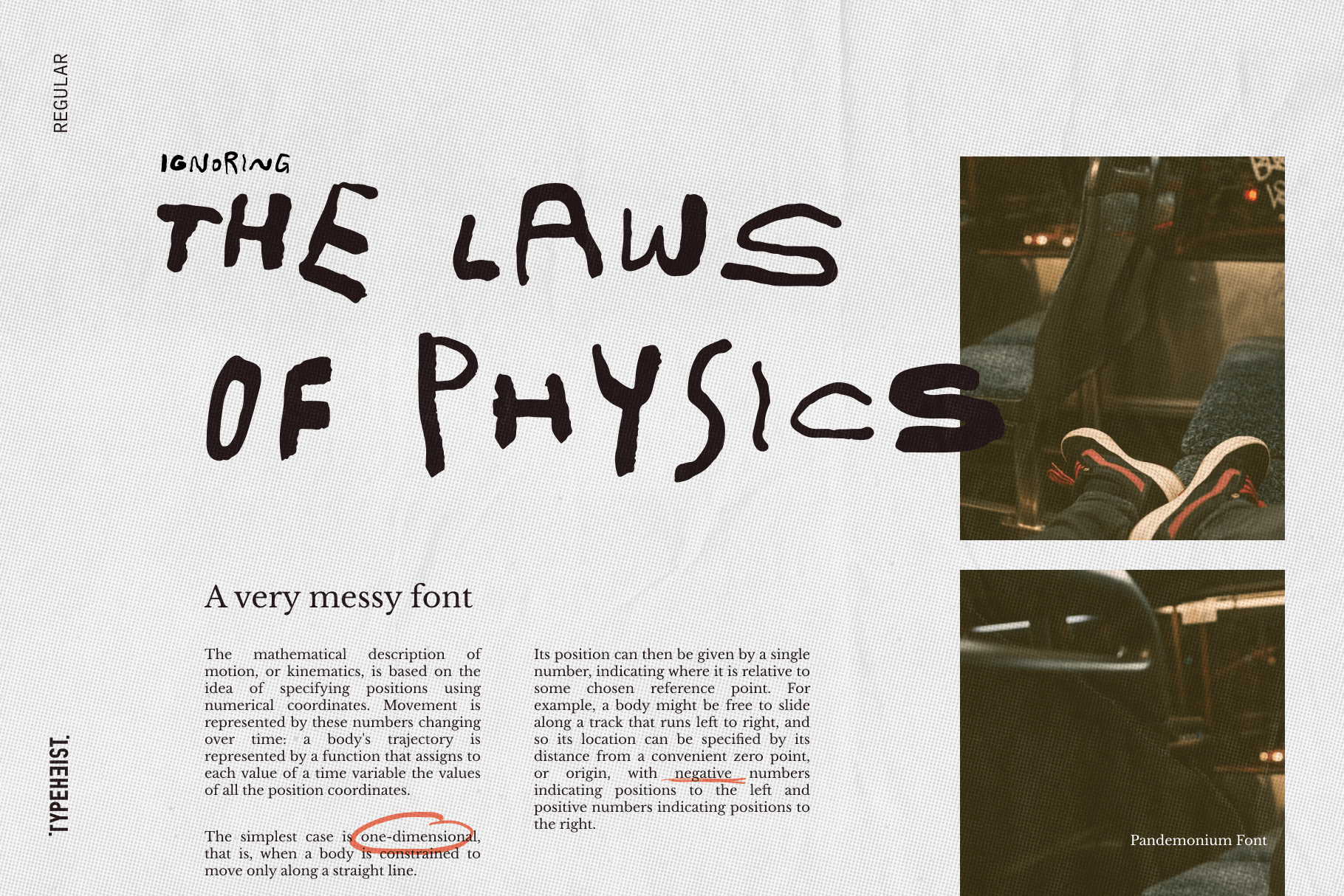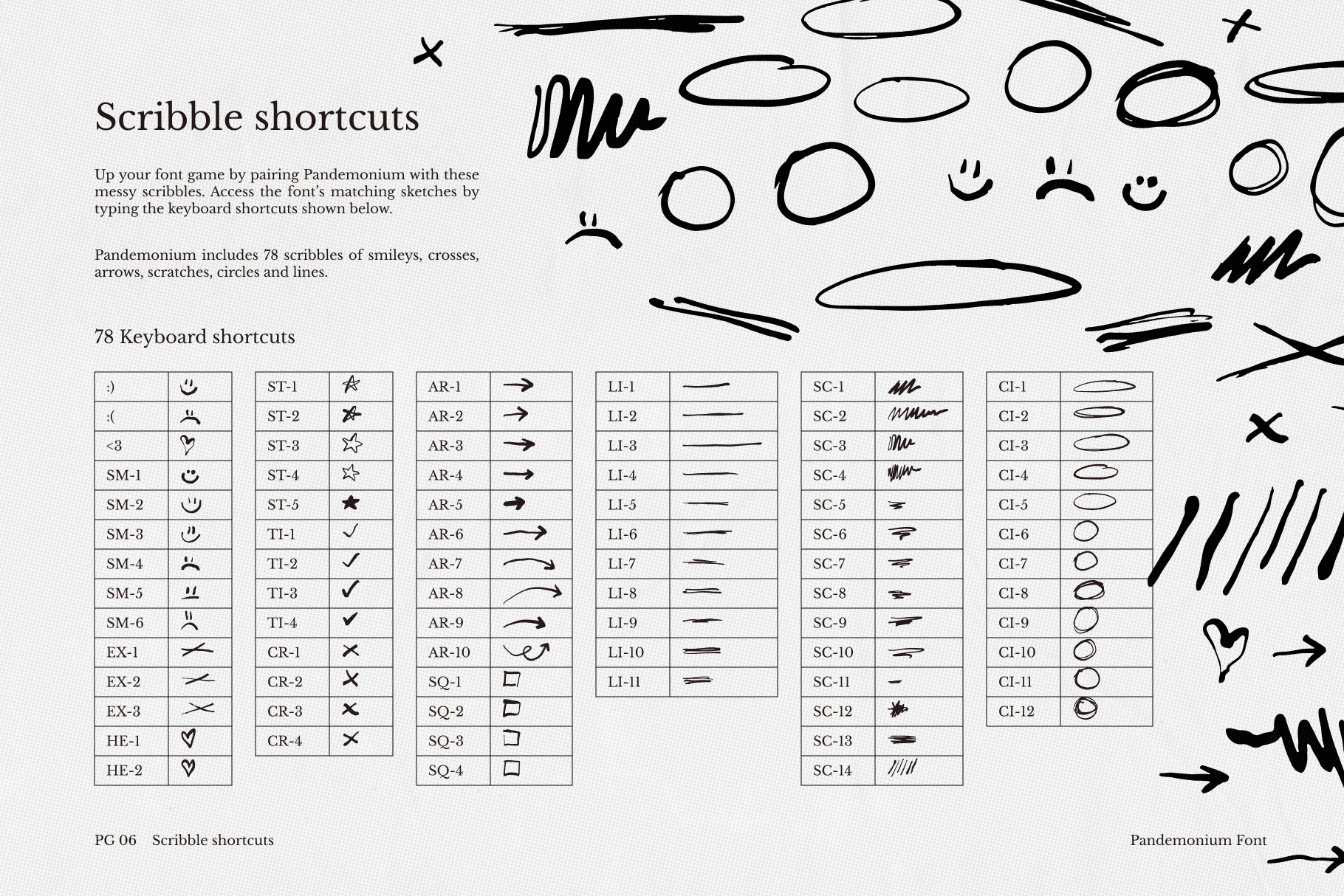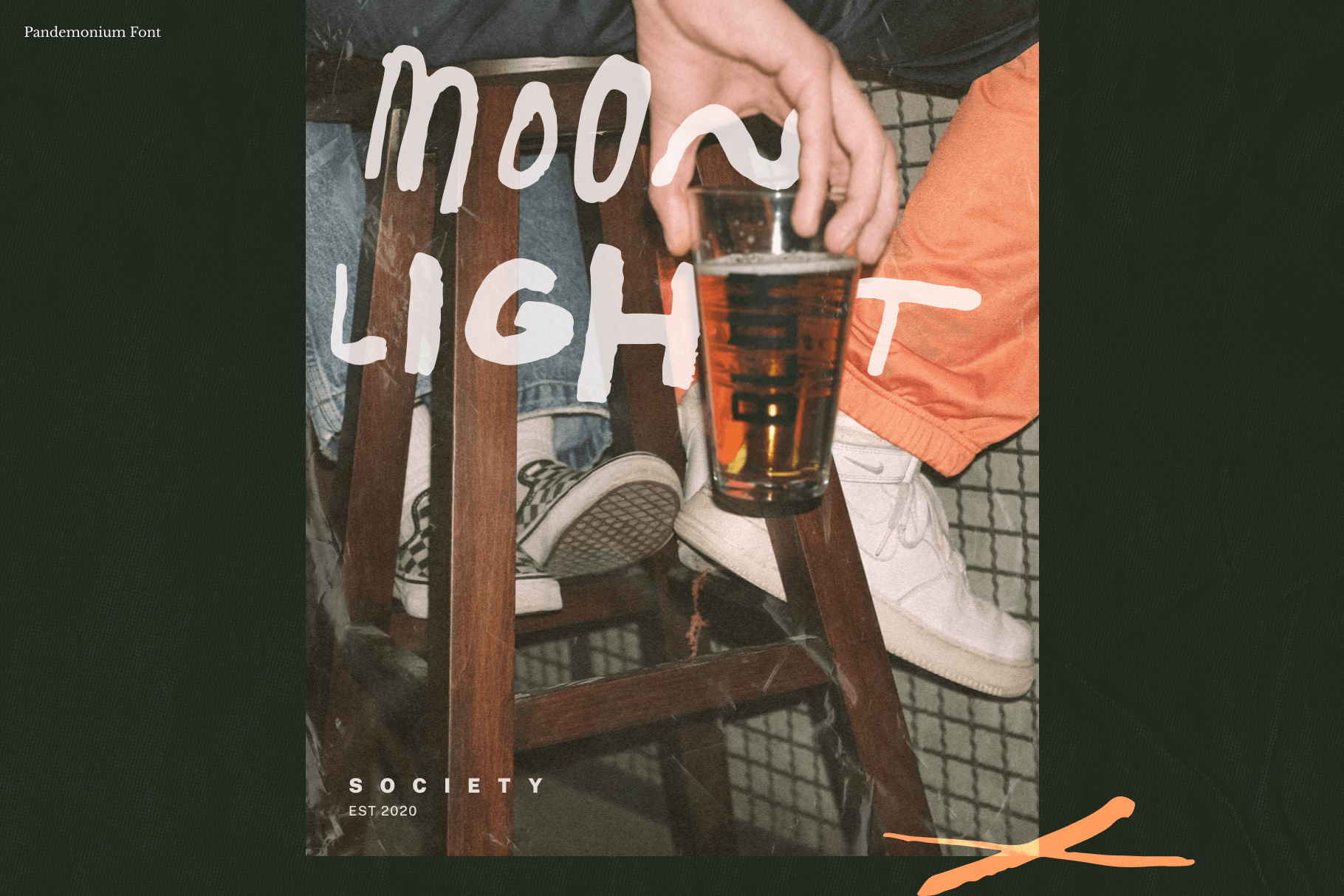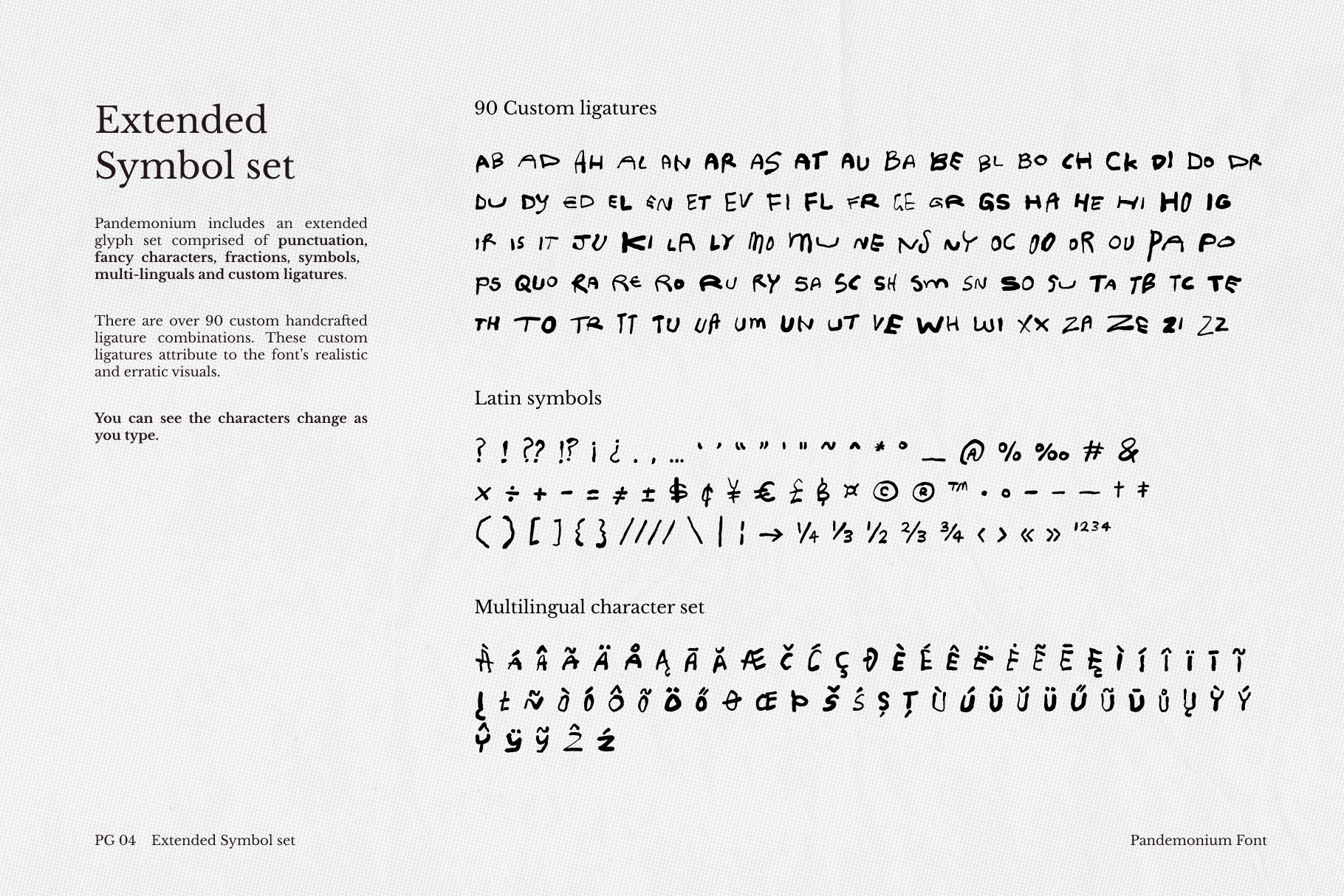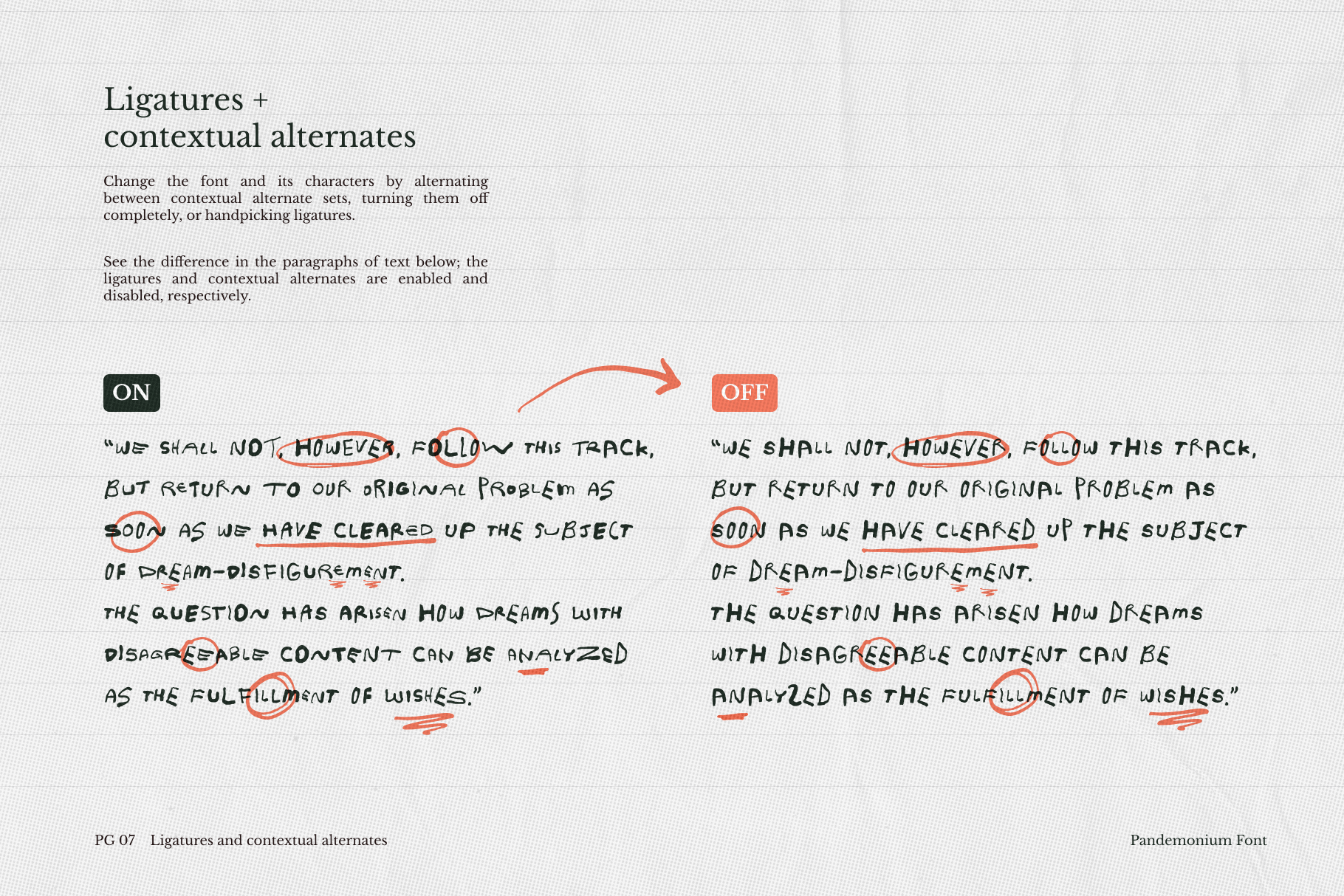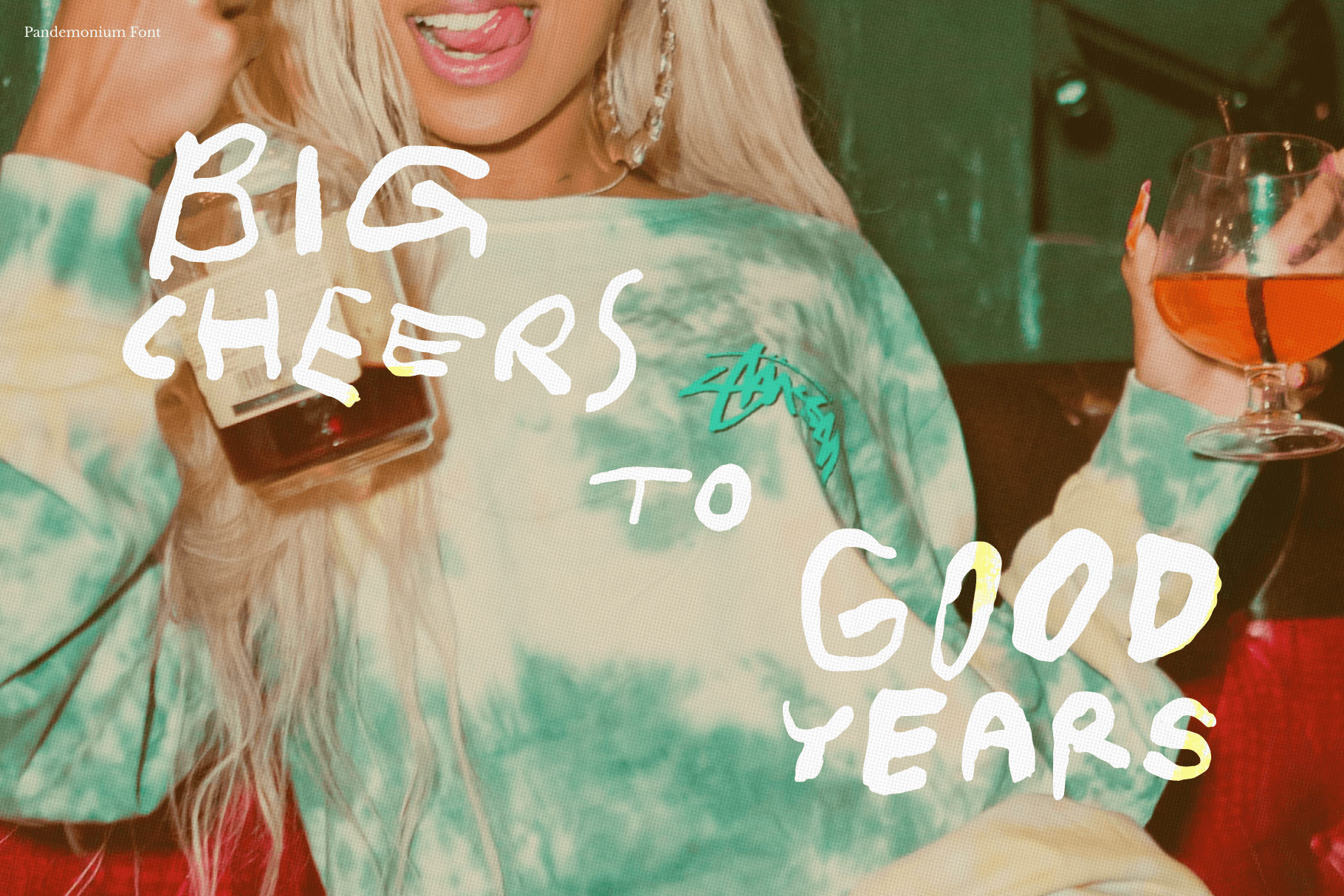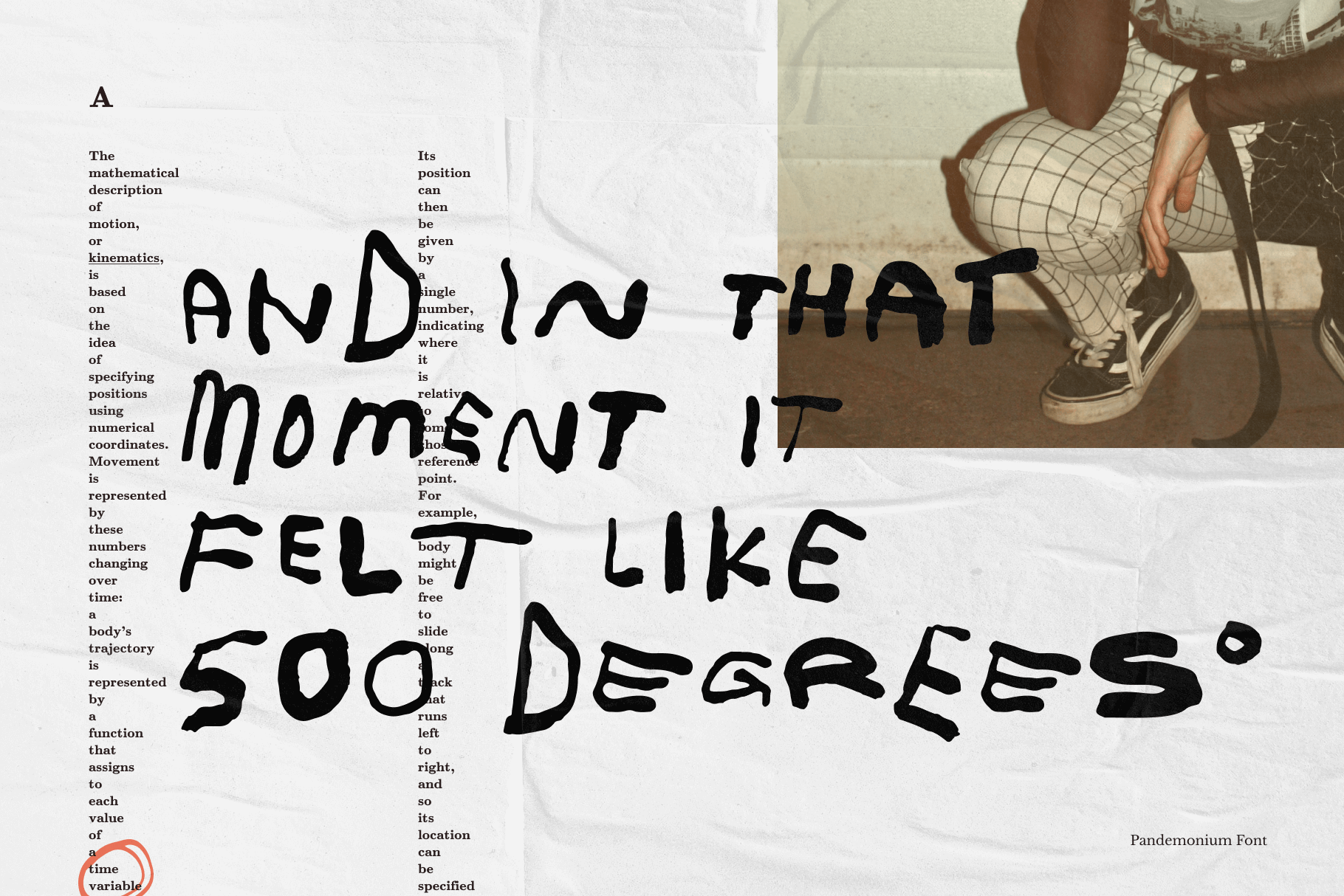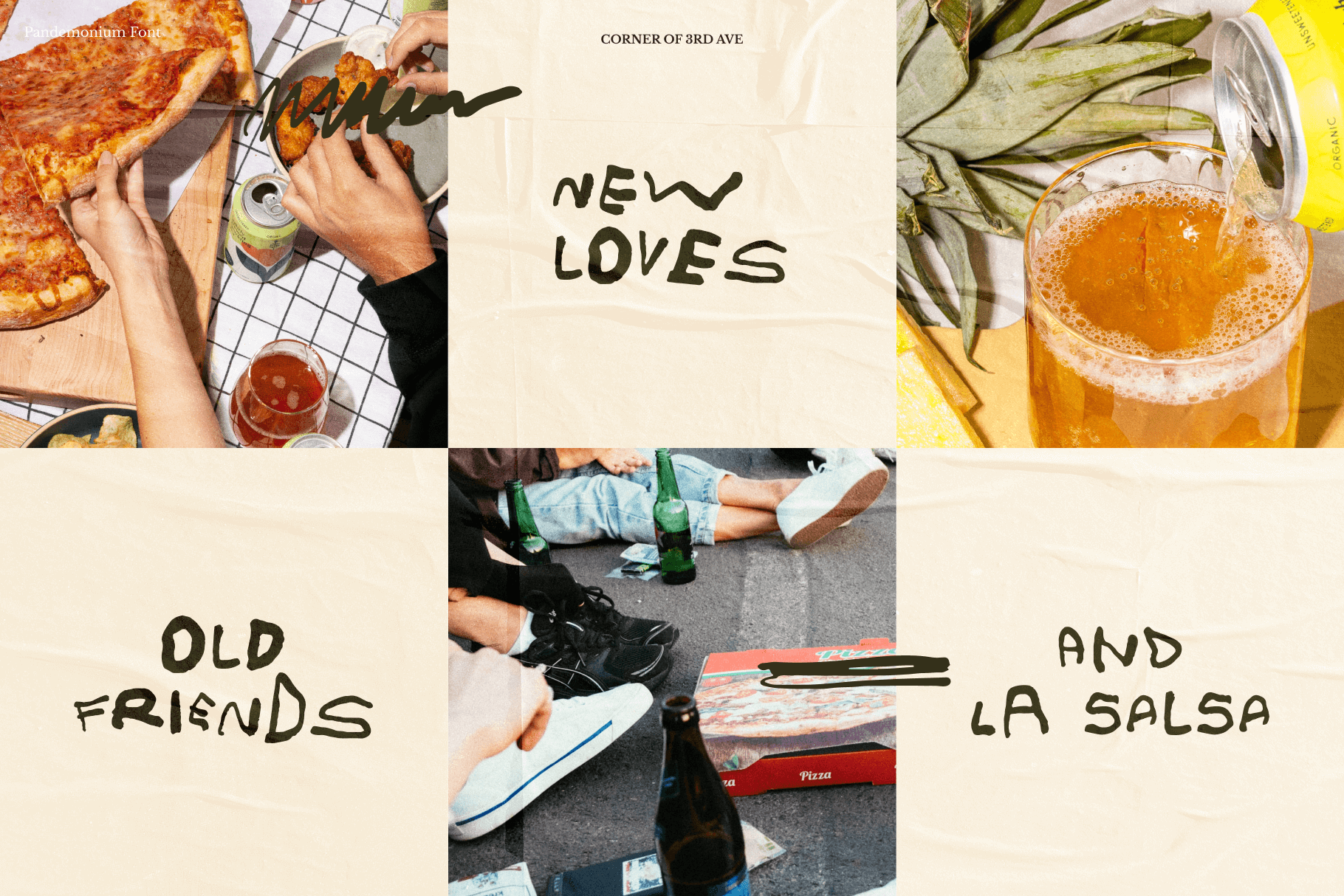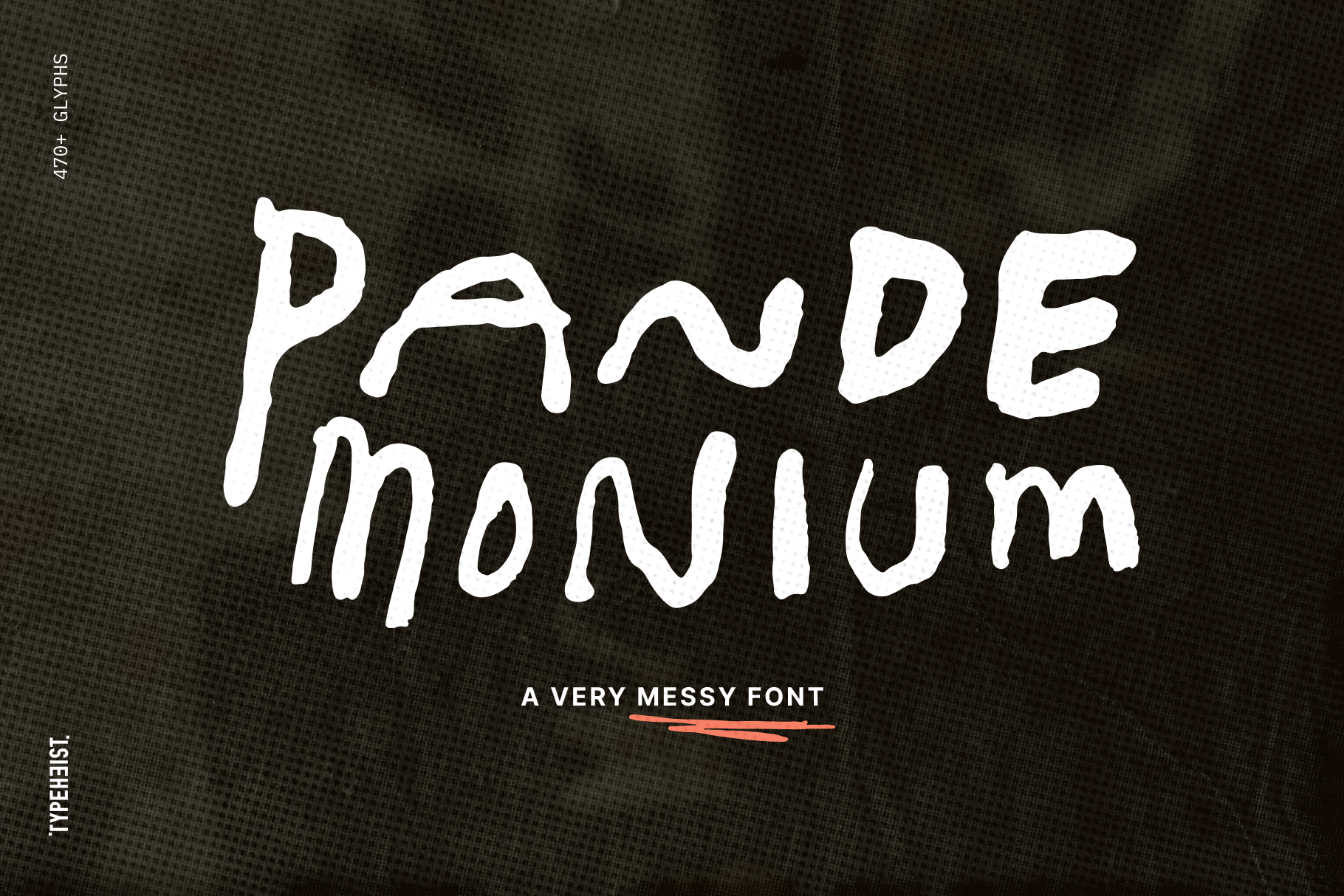
“Wild uproar, unrestrained disorder; tumult or chaos”. True to its name, Pandemonium font is exactly that: wild, chaotic and super erratic.
This messy handwriting font doesn’t follow any rules. It’s skinny, it’s wide, it’s bold, it’s scratchy, it’s jagged and unpredictable. And yet somehow, amongst it’s disorder, each letter harmonises with the next one.
Pandemonium has multilingual characters, four equally wild sets of A-Z and 0-9 characters, as well as an extended set of Latin characters.
Additionally, this font has its own set of 78 scribble glyphs which are accessible via keyboard shortcuts.
Pandemonium is an all uppercase font with tonnes of personality. This font is perfect for designing editorials, fashion spreads, accompanying photography shoots, album covers or your next unique project.
This ‘bad handwriting’ font has an extensive set of glyphs (475 to be exact), giving it its realistic look and ensuring your designs are super unique.